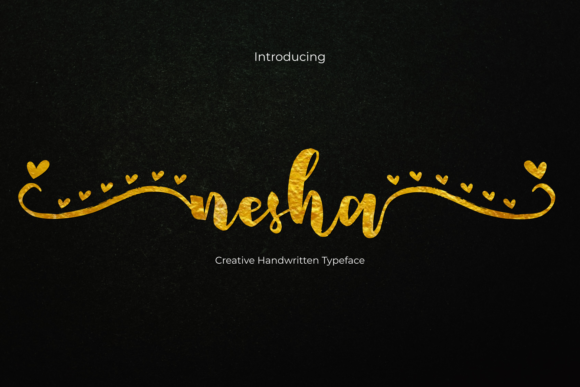
Journey into the world of charm and elegance with Nesha Font, the enchanting script font that will captivate your heart. Crafted with passion by Infontree, Nesha embodies the essence of handwritten beauty, adding a touch of personal charm to every design it graces.
With each letter lovingly penned, Nesha dances across the page like a heartfelt melody. Its graceful curves and flowing lines evoke a sense of romance and nostalgia, making it the perfect choice for baby shower invitations, greeting cards, and any project that calls for a touch of whimsy.
Nesha's versatility knows no bounds. Whether you're creating social media posts, branding materials, or simply adding a unique touch to your personal designs, this font will elevate your creations to new heights. Its PUA encoding allows for effortless access to a world of glyphs and swashes, giving you endless possibilities for customization.
Imagine the heartfelt smiles when your baby shower invitations, adorned with Nesha's elegant script, arrive in your guests' mailboxes. Picture the joy on their faces as they read your heartfelt message, written in a font that exudes warmth and affection.
Nesha is more than just a font; it's an invitation to let your creativity soar. Dive into the realm of design possibilities and let Nesha guide you as you craft masterpieces that capture hearts and create lasting memories.